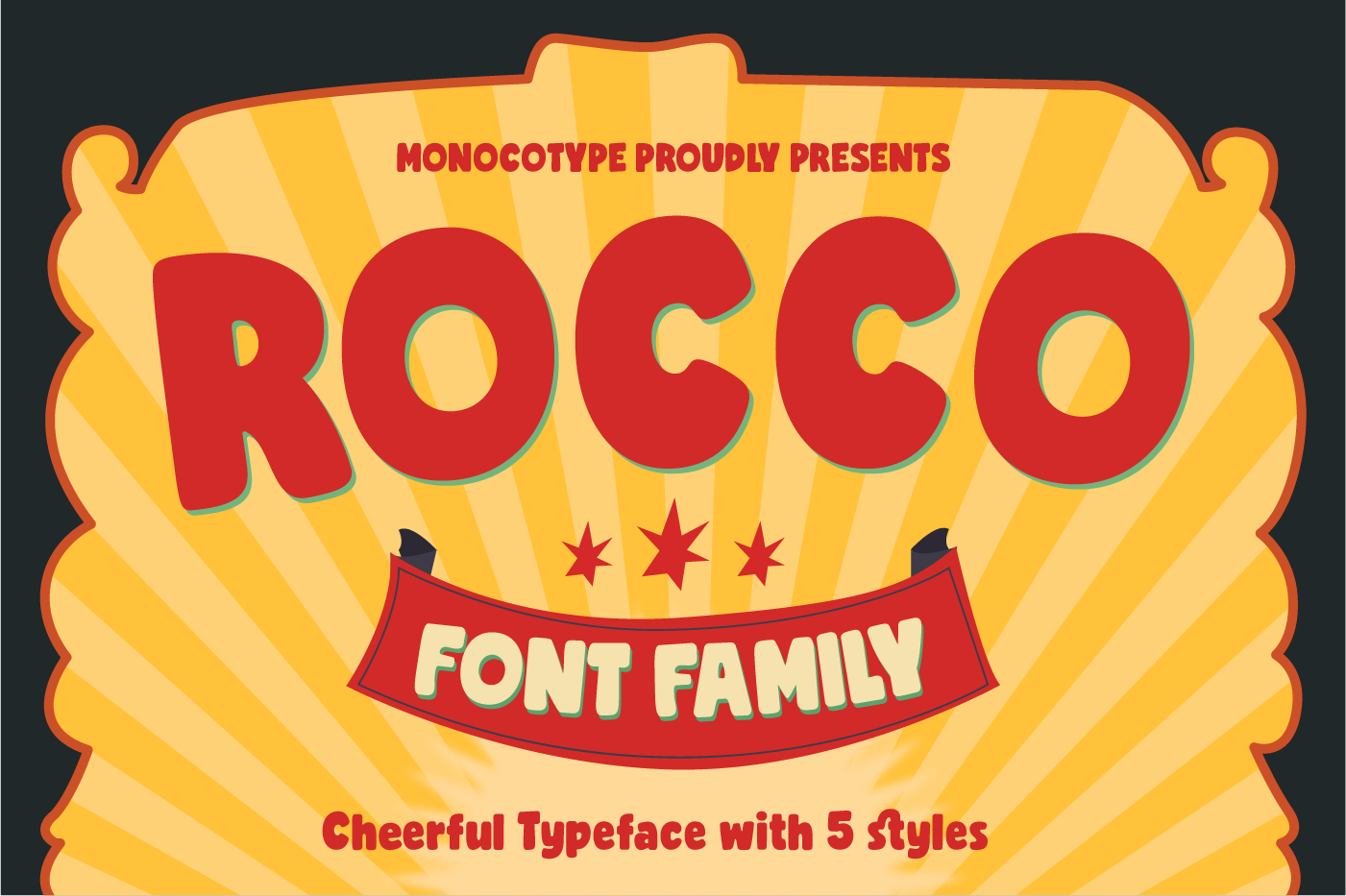
Rocco is a font family with 5 style; Regular, Italic, Wide, Narrow, and Outline. Let's bring cheerful vibe to your design using this font!
Rocco Font Family is perfect for many different project such as logos & branding, invitation, stationery, wedding designs, social media posts, advertisements, product packaging, product designs, label, photography, watermark, special events or anything.
- More than 300 of glyphs and Ligature.
- Fonts include multilingual support for; Afrikaans, Albanian, Catalan, Croatian, Czech, Danish, Dutch, English, Estonian, Finnish, French, German, Hungarian, Icelandic, Italian, Lithuanian, Maltese, Norwegian, Polish, Portugese, Slovak, Slovenian, Spanisch, Swedish, Turkish, Zulu.